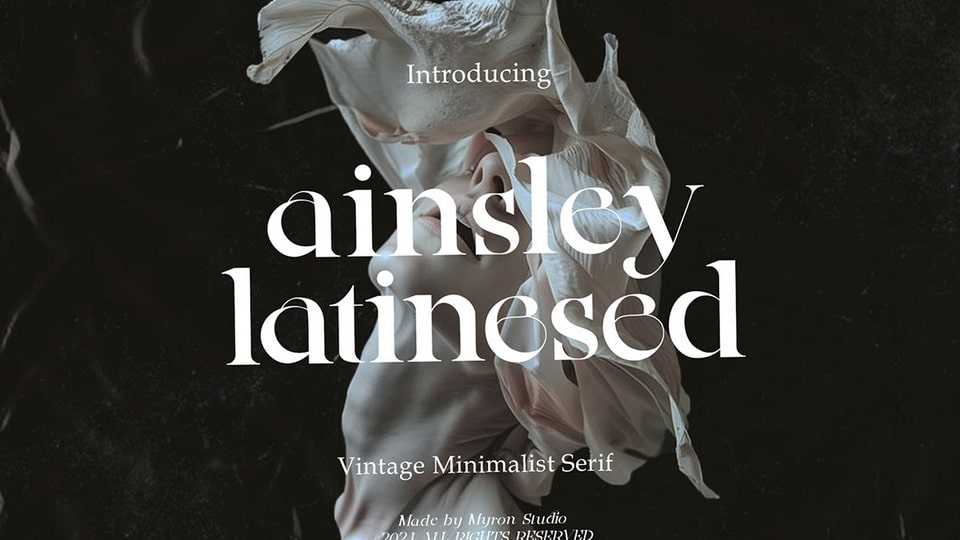
Download Ainsley Latinesed font, a vintage serif typeface that embodies minimalism and elegance, crafted with graceful alternate characters and modern ligatures.
Designer: Reza Gunaifi Mulinsky